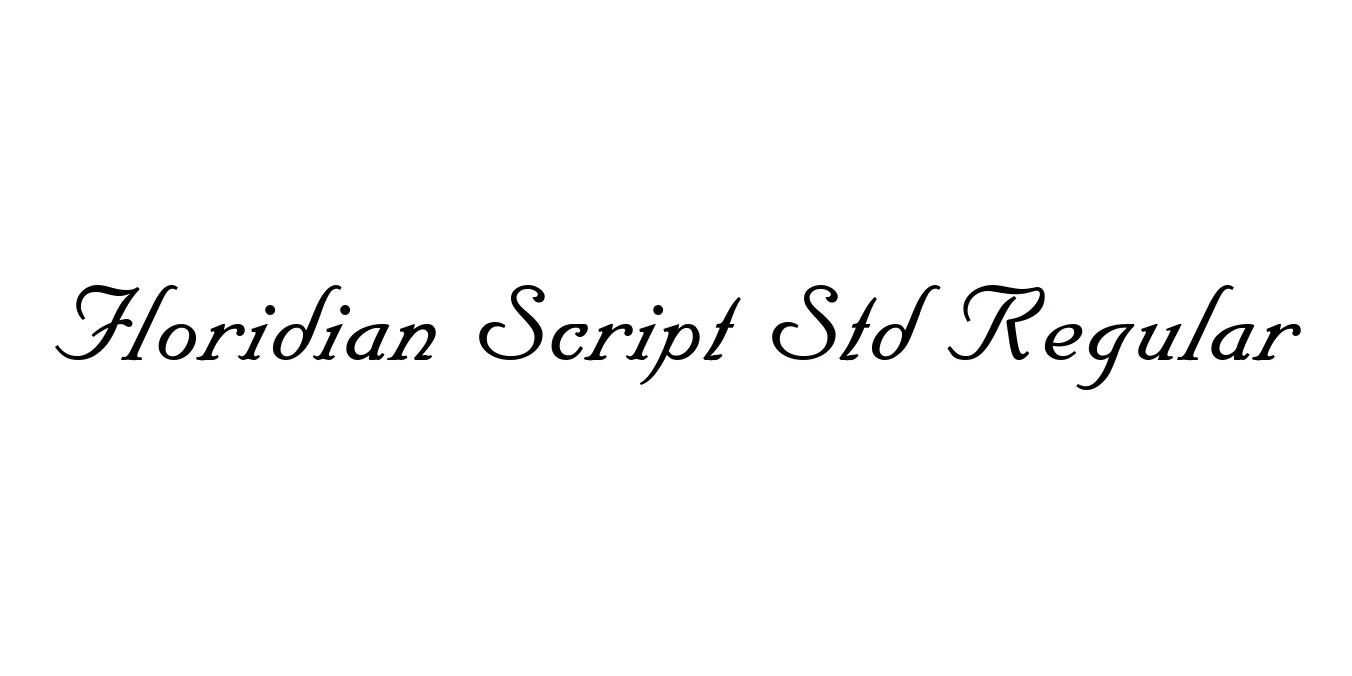
Floridian Script Std Regular
Designed by Monotype Design Studio
Floridian Script is a formal script typeface that embodies the elegance and sophistication of 18th-century copperplate calligraphy. Characterized by its graceful loops, fine hairlines, and contrasting thick strokes, it offers a timeless aesthetic that conveys a sense of luxury and tradition. The typeface was refined for digital use by the Monotype Design Studio, ensuring that its intricate details remain crisp and legible across various media formats.
This font is widely recognized for its fluid motion and formal structure, making it a staple for high-end invitations and branding projects. Its delicate flourishes and classic proportions allow it to stand out as a decorative element without overwhelming the composition. Whether used for certificates, wedding stationery, or upscale logos, Floridian Script Std Regular remains a premier choice for designers seeking a balance of historical charm and professional polish.
Floridian Script Std Regular Best Uses
Ideal for elegant invitations, RSVP cards, and formal envelopes.
Adds a layer of prestige and authenticity to diplomas and professional awards.
Suitable for luxury logos, particularly in the beauty, fashion, and hospitality sectors.
Enhances the upscale aesthetic of high-end restaurant or gala dinner menus.